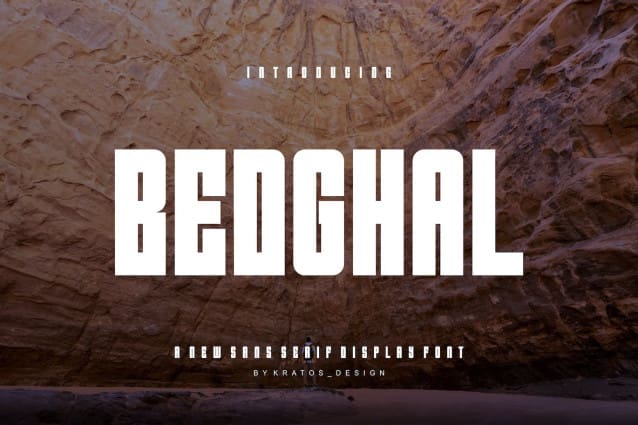
Bedghal Font
Bedghal Font – Modern Font is a bold and authentic display font. The font is suitable for any branding project like logo, Template Design, Product and many more. outstanding in a wide range of contexts.